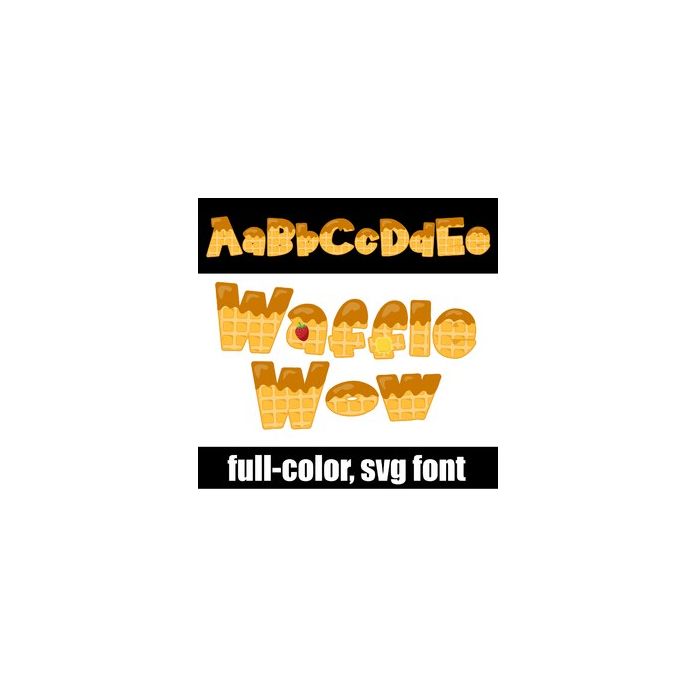
This full-color font features letters that look like waffles with syrup. Access a butter pad and strawberry by typing the greater than and less than glyphs. This font works best for titles, displays, posters and more. Please note color fonts will show as black in non compatible programs. This font type is compatible with Silhouette Studio.